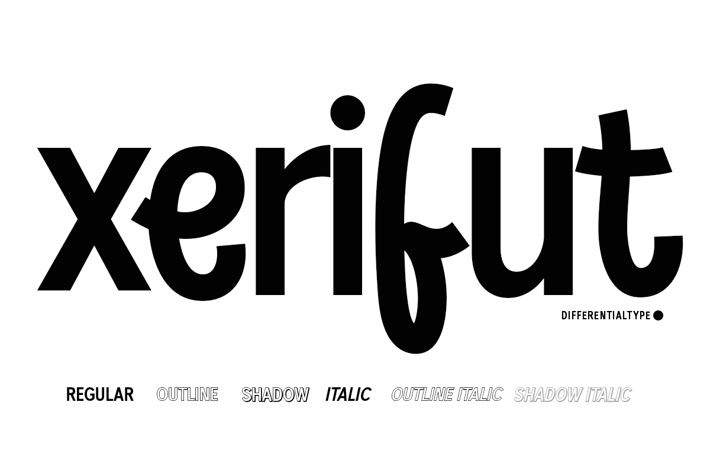
Xerifut - Sans Display Font
Differentialtype
Unveiling Xerifut, a harmonious blend of sans serif and handwritten alternates, meticulously crafted to meet the diverse needs of modern design. Whether you're embarking on a branding mission, committing words to screen, or undertaking a project demanding visual impact, Xerifut emerges as a versatile tool. Offering a suite of six distinct styles, Xerifut enables the freedom to experiment and express according to your unique design visions. Infuse Xerifut into your creative endeavors for a distinct touch that ensures your work always shines through the crowd.
Include 6 Style:
- Regular/italic
- Outline/italic
- Shadow/italic
- Uppercase & Lowercase
- Number
- Fractions